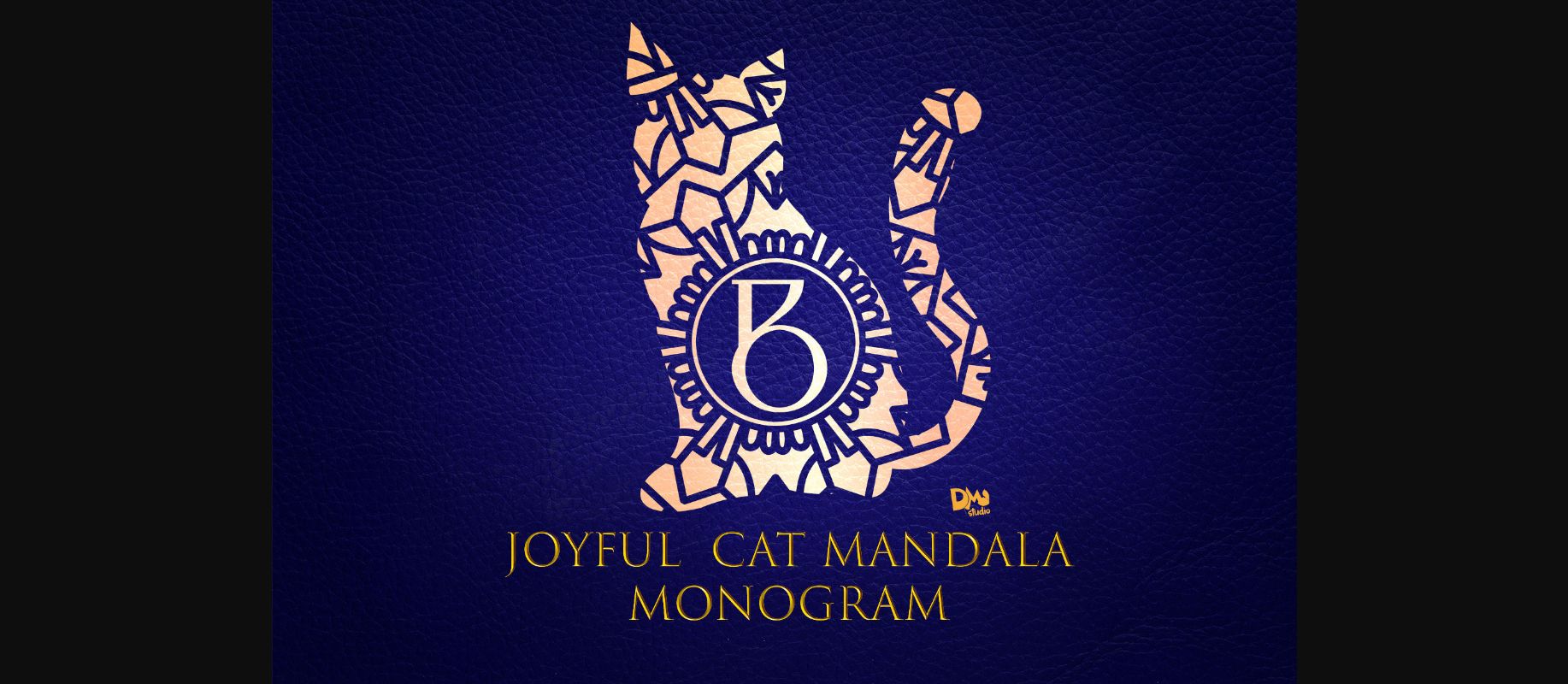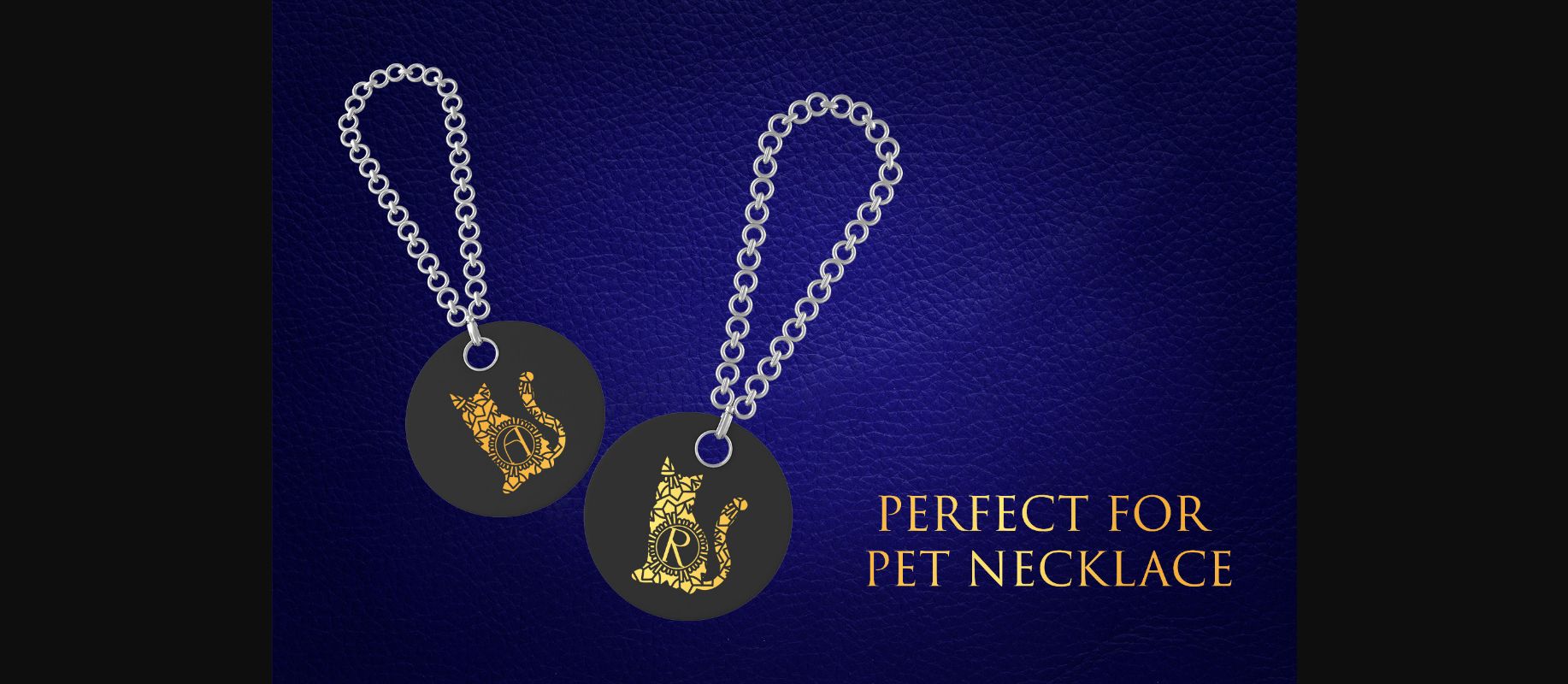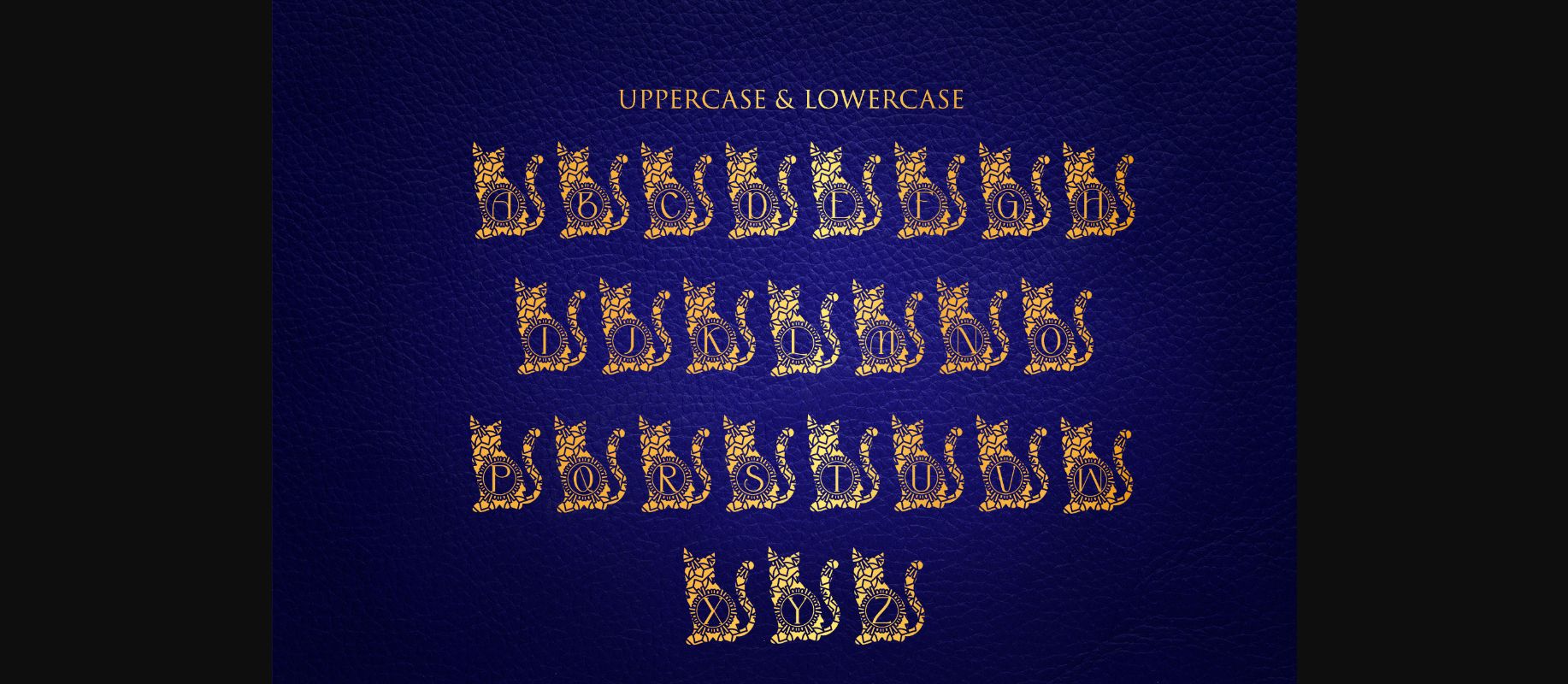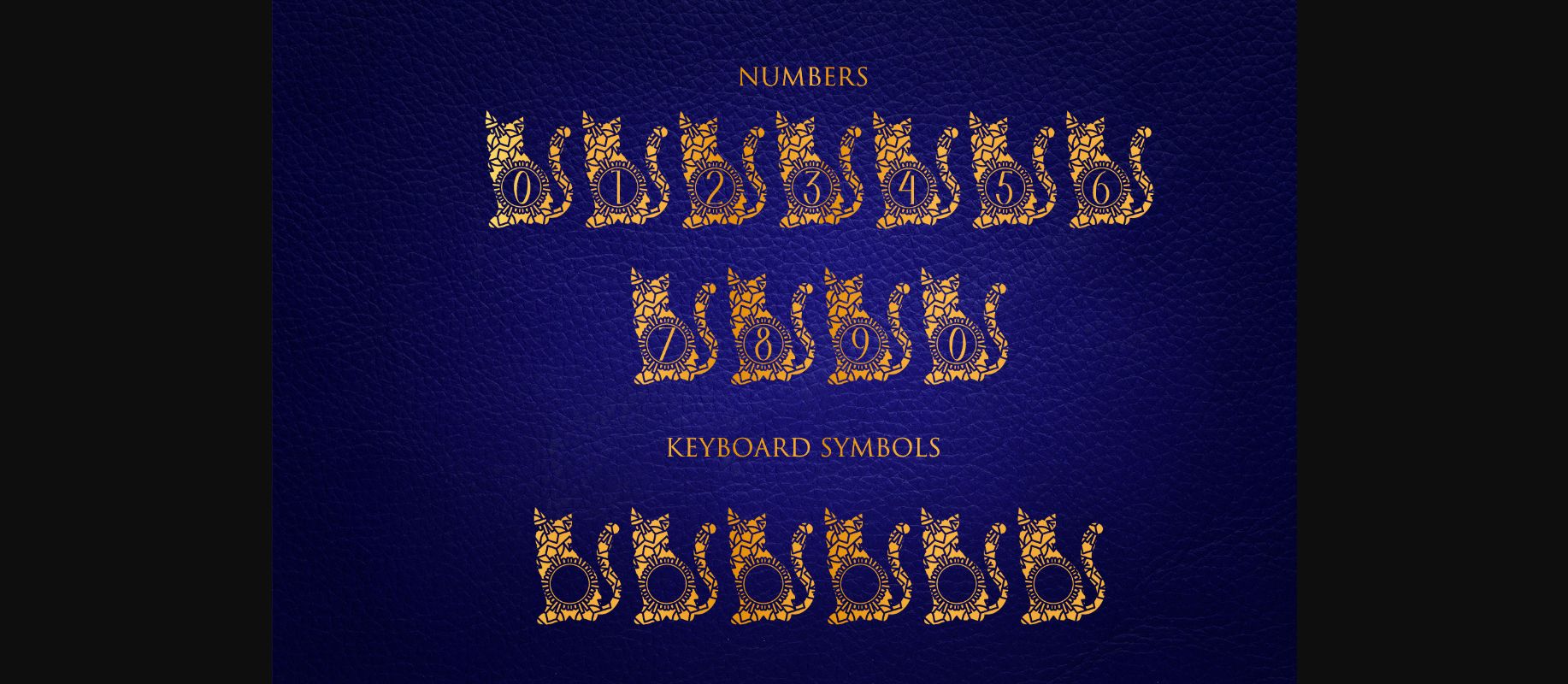
HomeDecorative FontsJoyful Cat Mandala Monogram Font Decorative Fonts Joyful Cat Mandala Monogram Font FacebookXPinterestWhatsApp 1 of 6 ... Joyful Cat Mandala Monogram Font Poster 2... Joyful Cat Mandala Monogram Font Poster 3... Joyful Cat Mandala Monogram Font Poster 4... Joyful Cat Mandala Monogram Font Poster 5... Joyful Cat Mandala Monogram Font Poster 6... About Joyful Cat Mandala Monogram Font Joyful Cat Mandala Monogram is the ultimate cat-lovers font. This purrfect decorative typeface will enhance any creative project dedicated to kittens. DOWNLOAD NOW People also explored Blackout Font Cute Speech Font Birdsong Font Algendria Font Daily Diary Font Ginger Bread Font Potato Font Tussilago Anastasya Font 336 0 TagsJoyful Cat Mandala Monogram Font Previous articleProud Cat Mandala Monogram FontNext articleLovely Cat Mandala Monogram Font LEAVE A REPLY Cancel reply Comment: Please enter your comment! Name:* Please enter your name here Email:* You have entered an incorrect email address! Please enter your email address here Website: Save my name, email, and website in this browser for the next time I comment. Personal Use Free Harshita Personal Use Free Read more about this font BD TinyFont Personal Use Free Read more about this font Roustel Personal Use Free Read more about this font Little Things Duo Personal Use Free Read more about this font BLOG Top 7 Google Fonts Alternatives for Faster and Privacy-Friendly Web Design (2025) Top 7 Google Fonts Alternatives for Faster and Privacy-Friendly Web Design (2025) When it comes to web typography, Google Fonts has long been the go-to... How to Install and Use Fonts on Windows, macOS, and Web Projects How to Cut Any Font on Cricut: Convert a Font to SVG (Free) Top 10 Handwritten Fonts That Elevate Your Designs